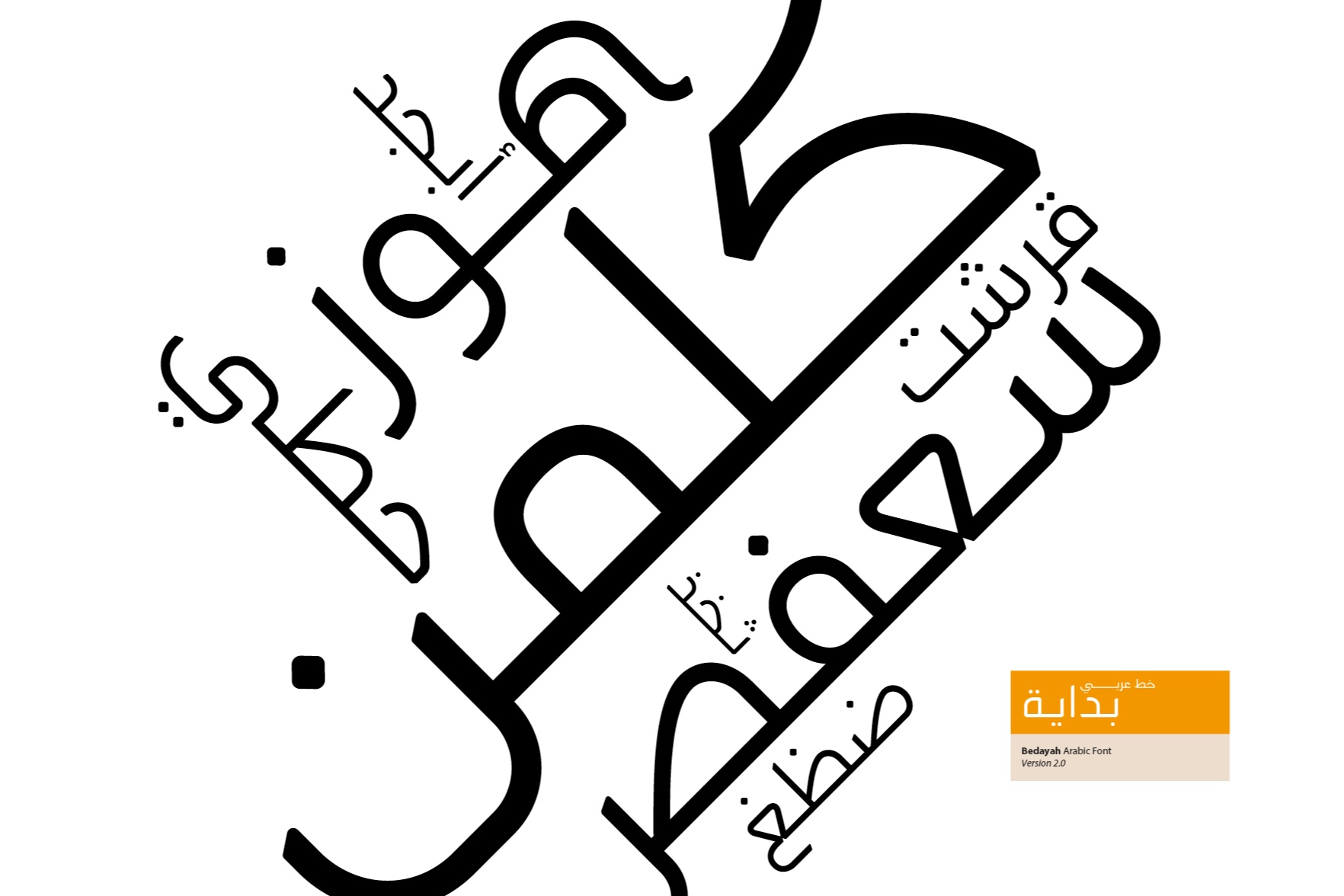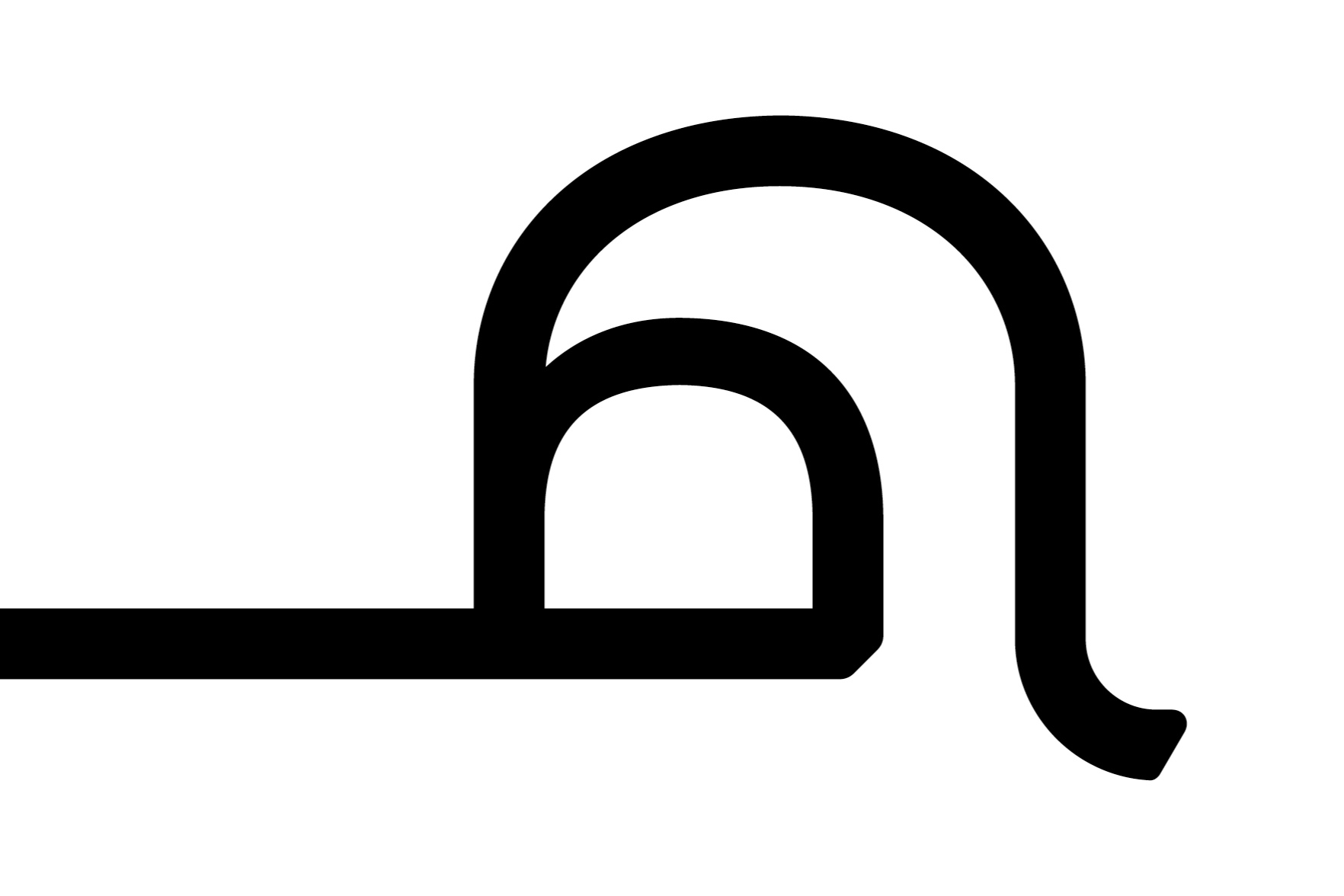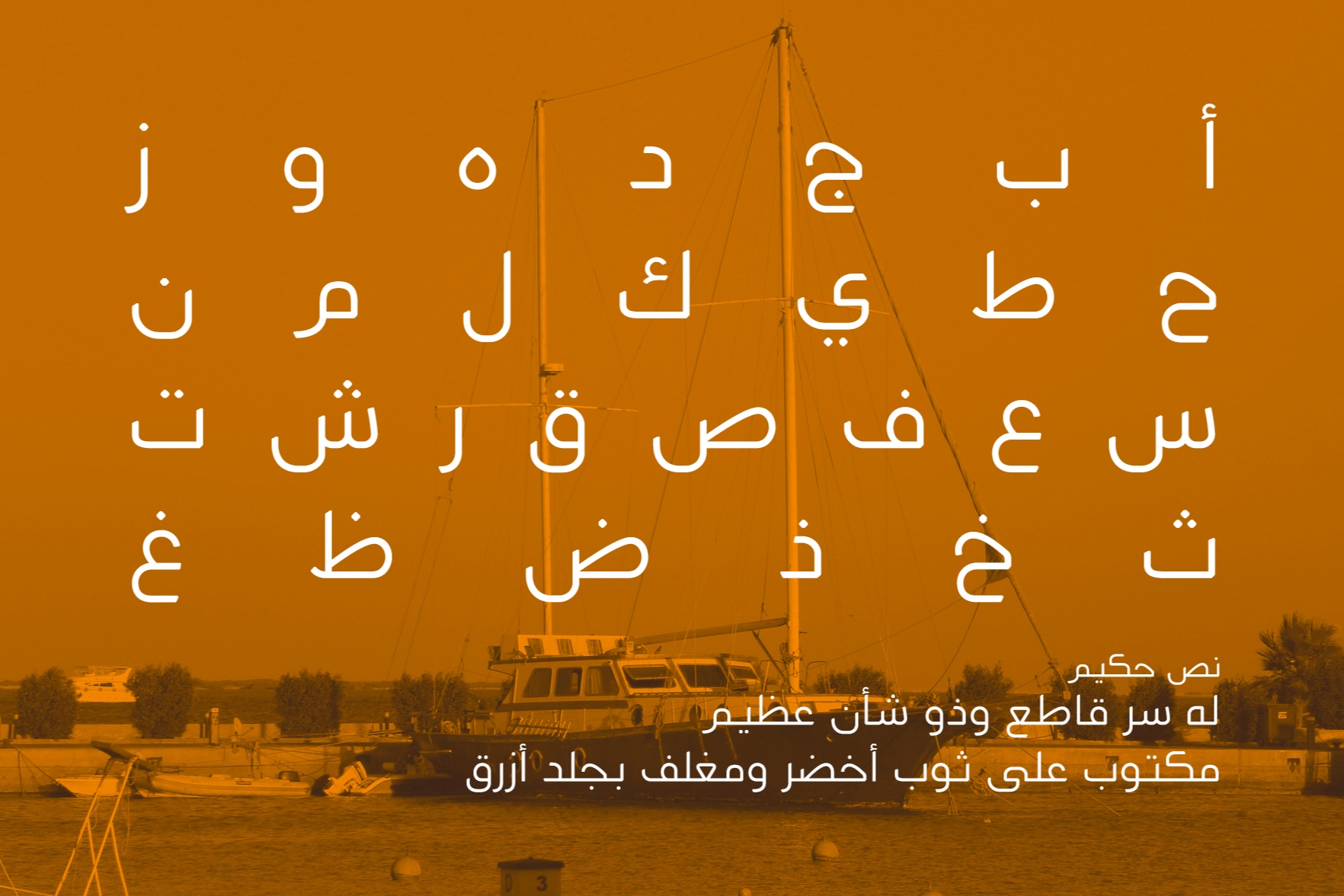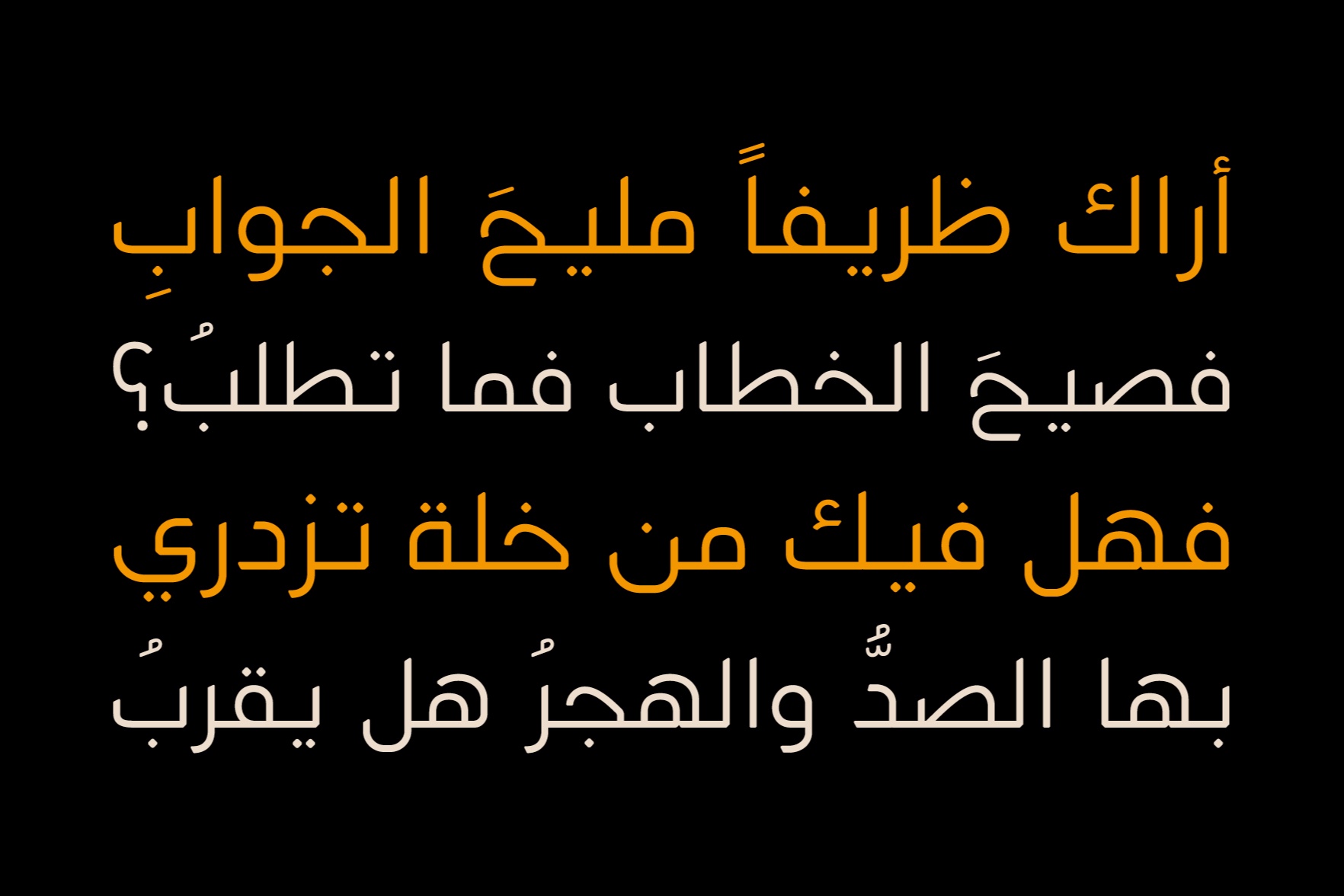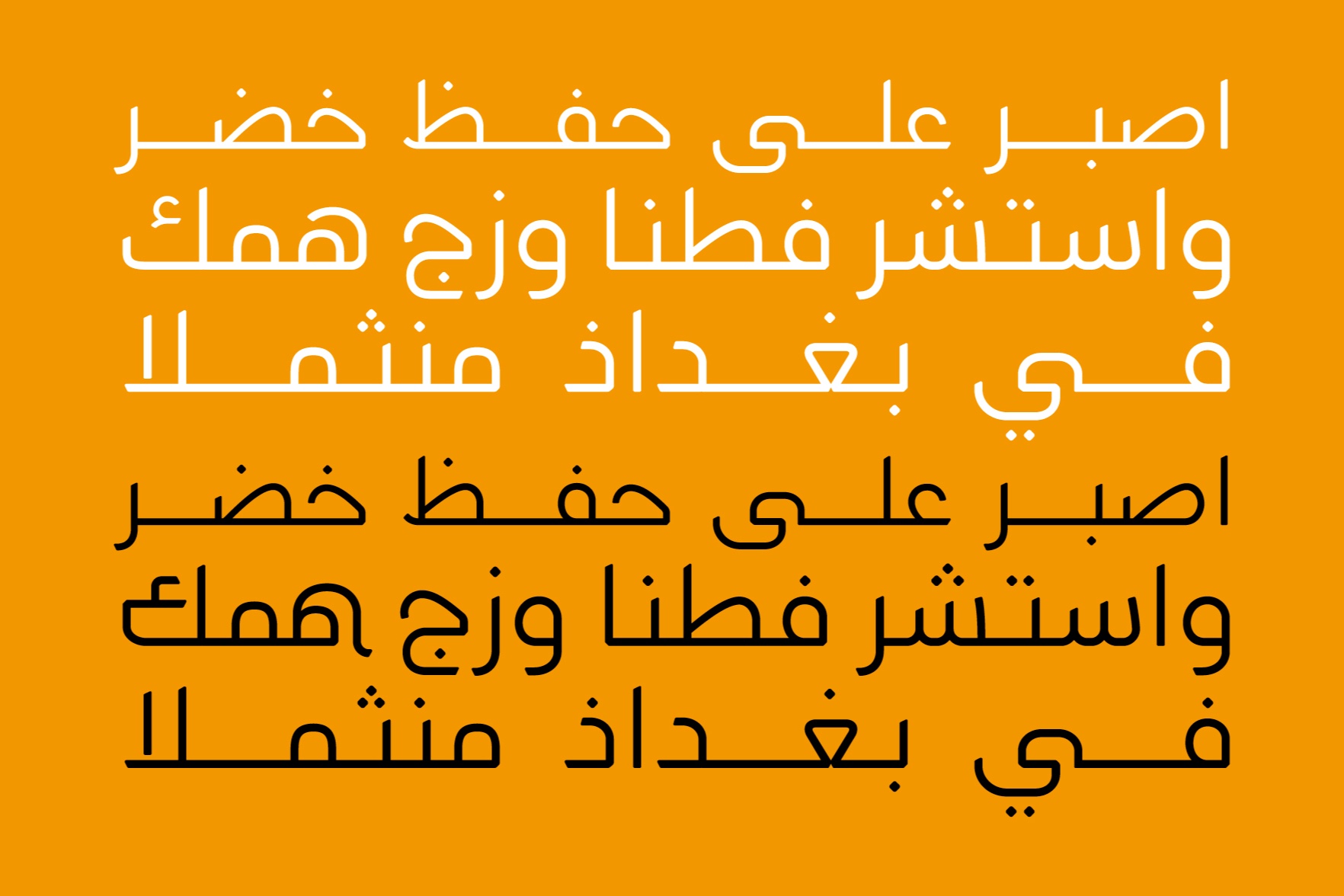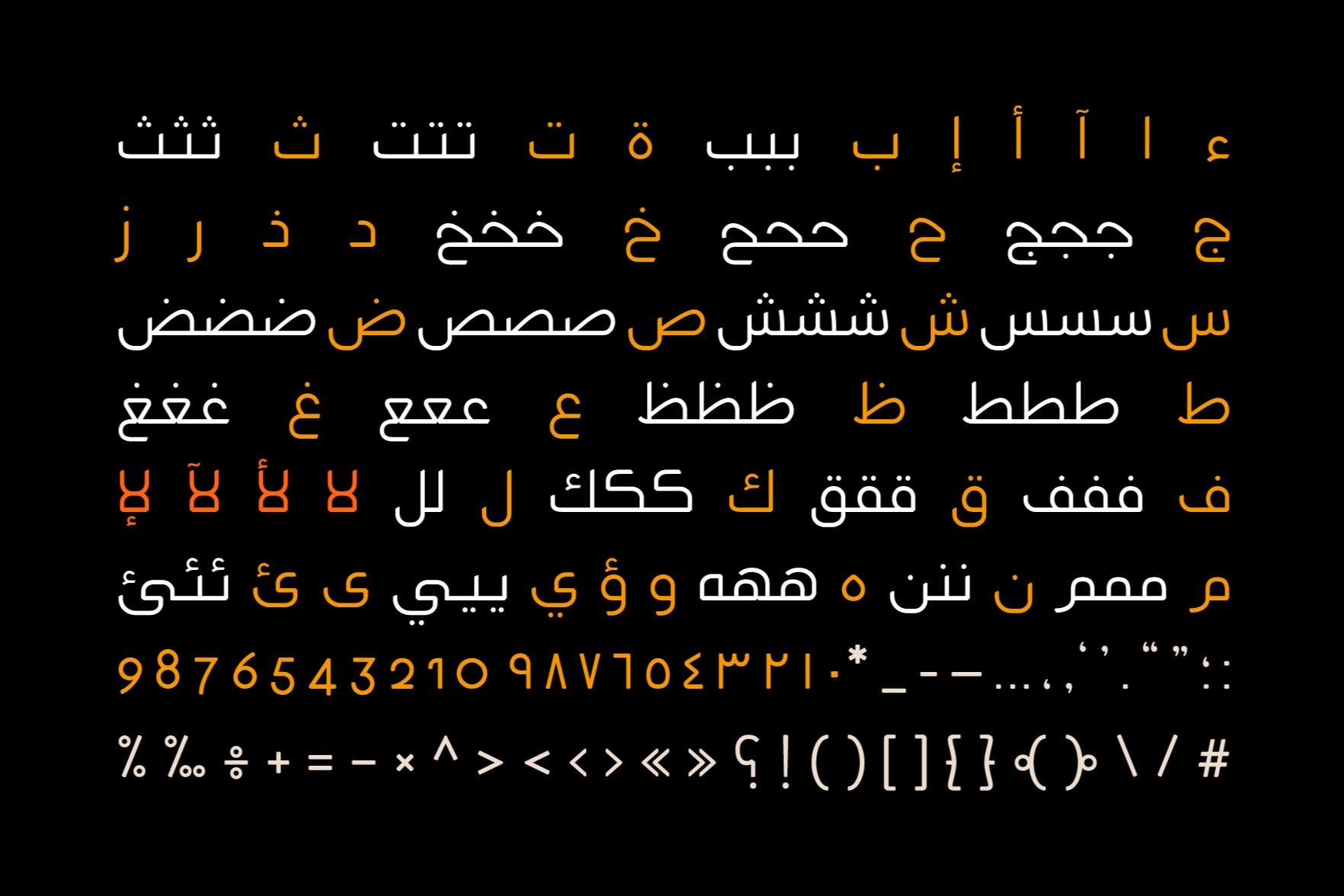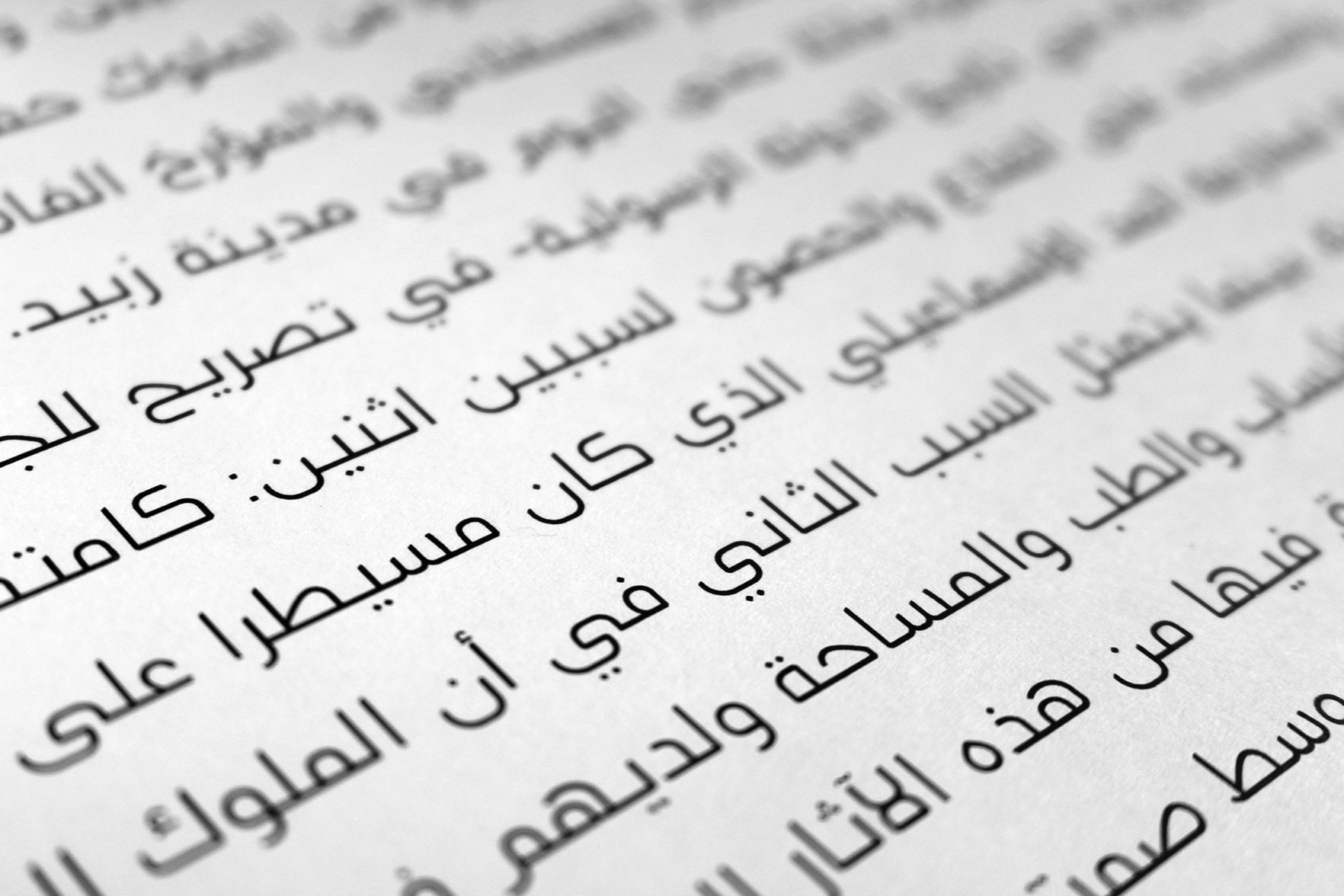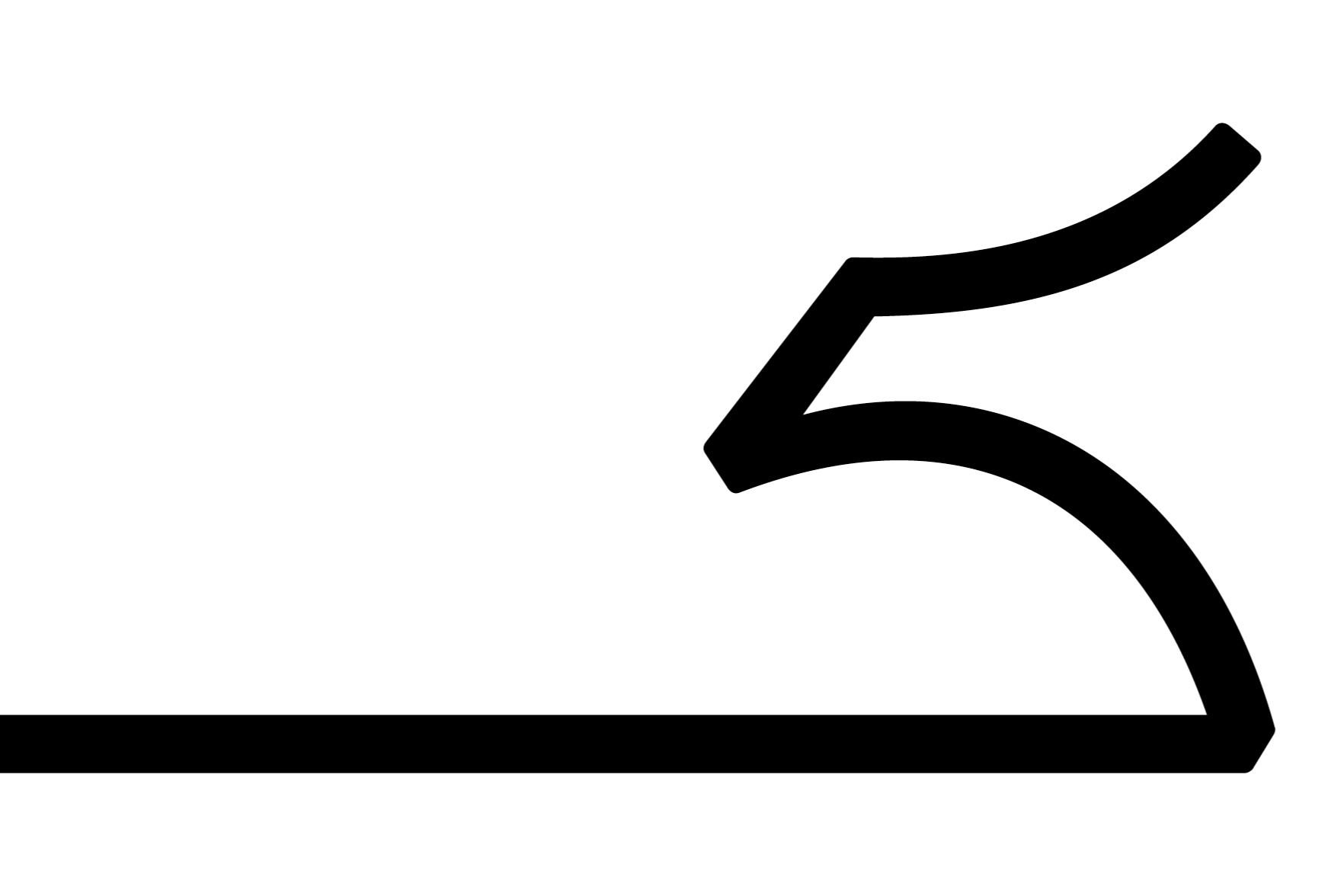
Bedayah is an Arabic typeface that combines geometric design with modern aesthetics, resulting in clear and readable letterforms. The term Bedayah translates to "Beginning" in Arabic. This font is ideal for use in advertising, desktop publishing, and web design.